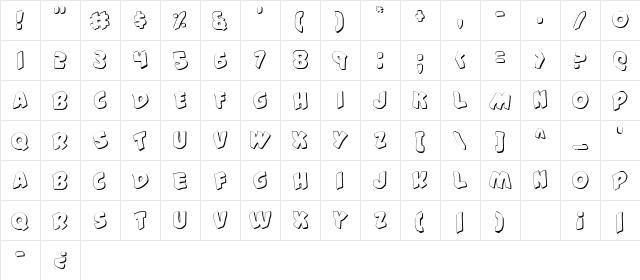
#44 Font is built around its visual character rather than neutral utility - its distinctive forms are designed to make an impression at display sizes.